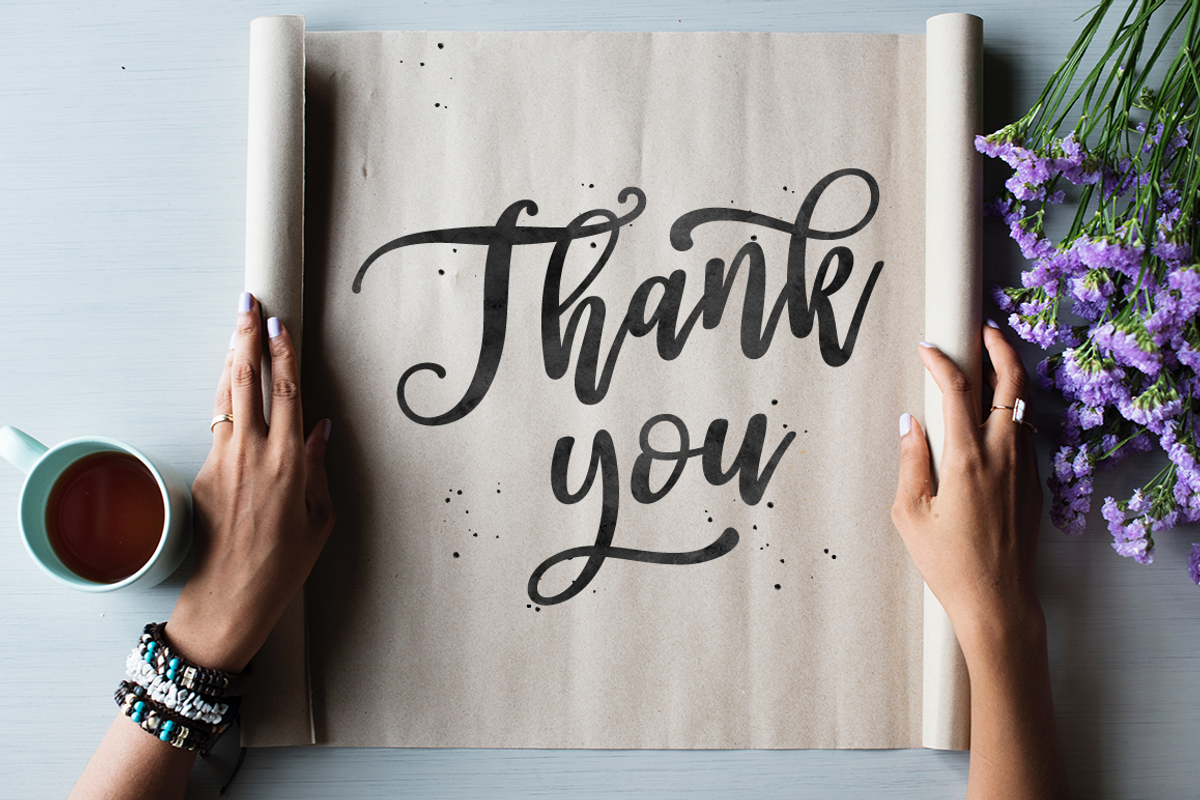
Ostende
Ostende script- a new handwritten font.
This font is ideal for branding and decorate your any project, are perfect for wedding invitation or your blog. Also with their help, you can create a logo or beautiful frame for your home. Or just use for your small business, book covers, stationery, marketing, magazines and more. Especially for you, I have prepared a lot of ligatures and alternatives that would be your project was more unique.